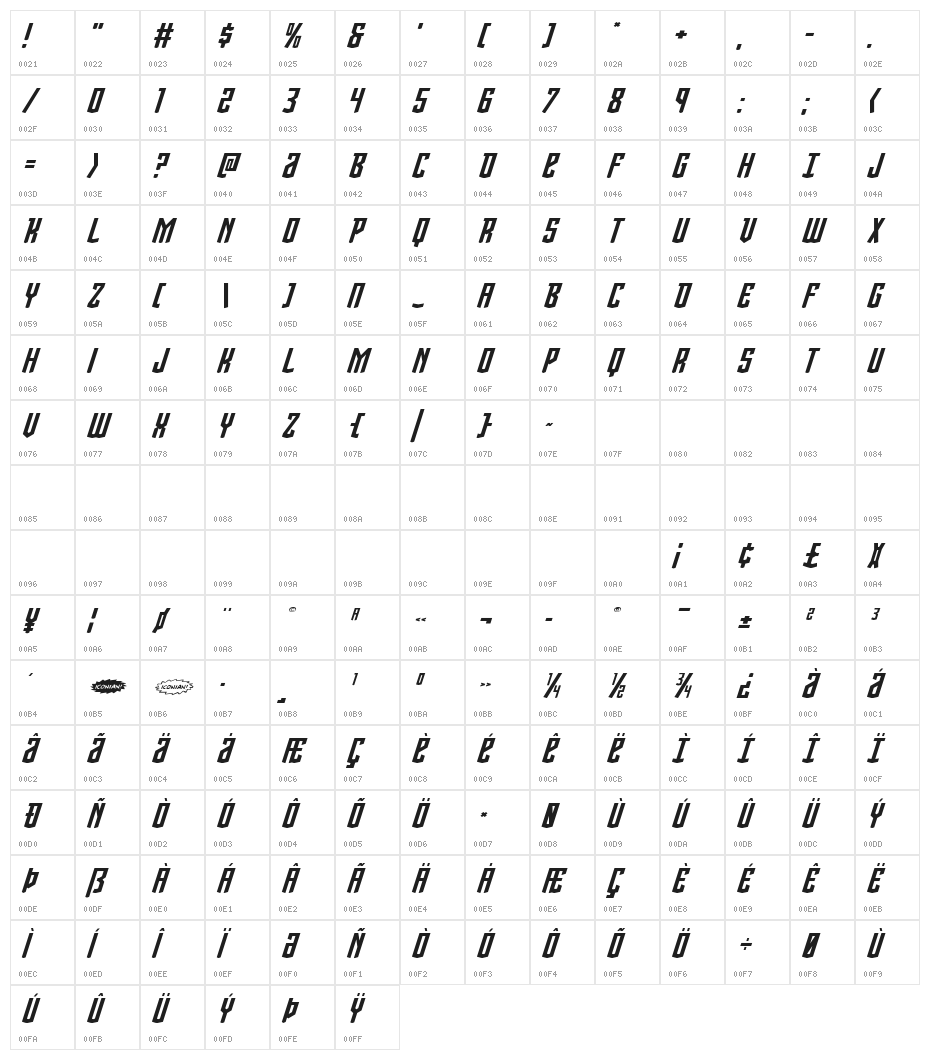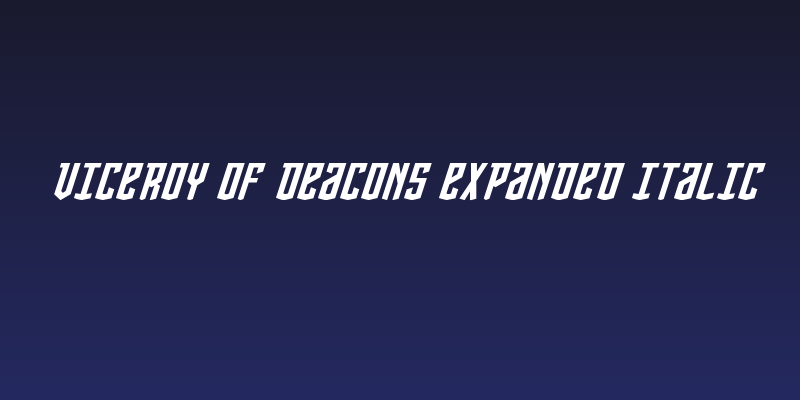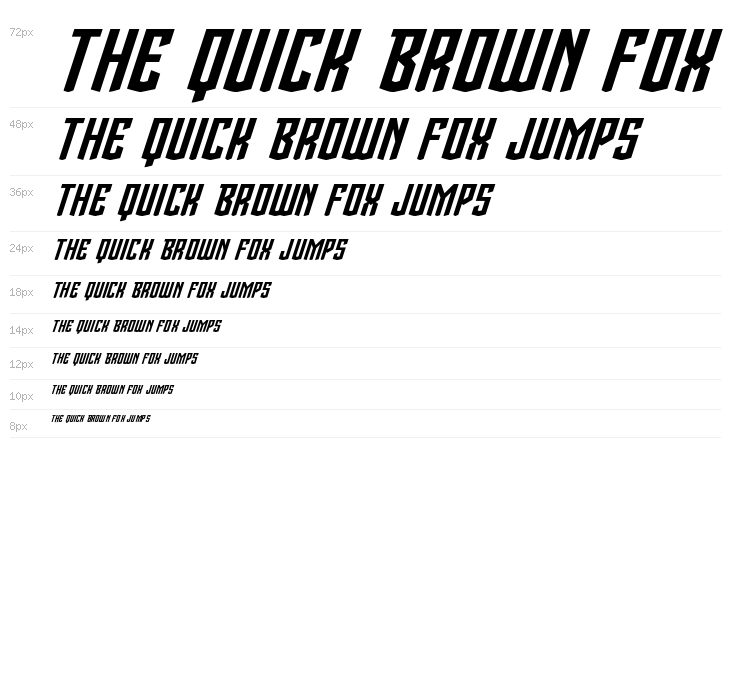
Viceroy of Deacons Expanded Italic Font
Viceroy of Deacons Expanded Italic Description
This font features a bold and dynamic style with a distinct italic slant, giving it a sense of movement and energy. The characters are expanded, providing a wide and impactful appearance. The angular and sharp edges contribute to a modern and edgy look, making it suitable for attention-grabbing designs. The uppercase and lowercase letters maintain a consistent style, ensuring readability while adding a unique flair. The numerals and special characters are designed to match the bold and italicized theme, offering versatility in various design contexts.